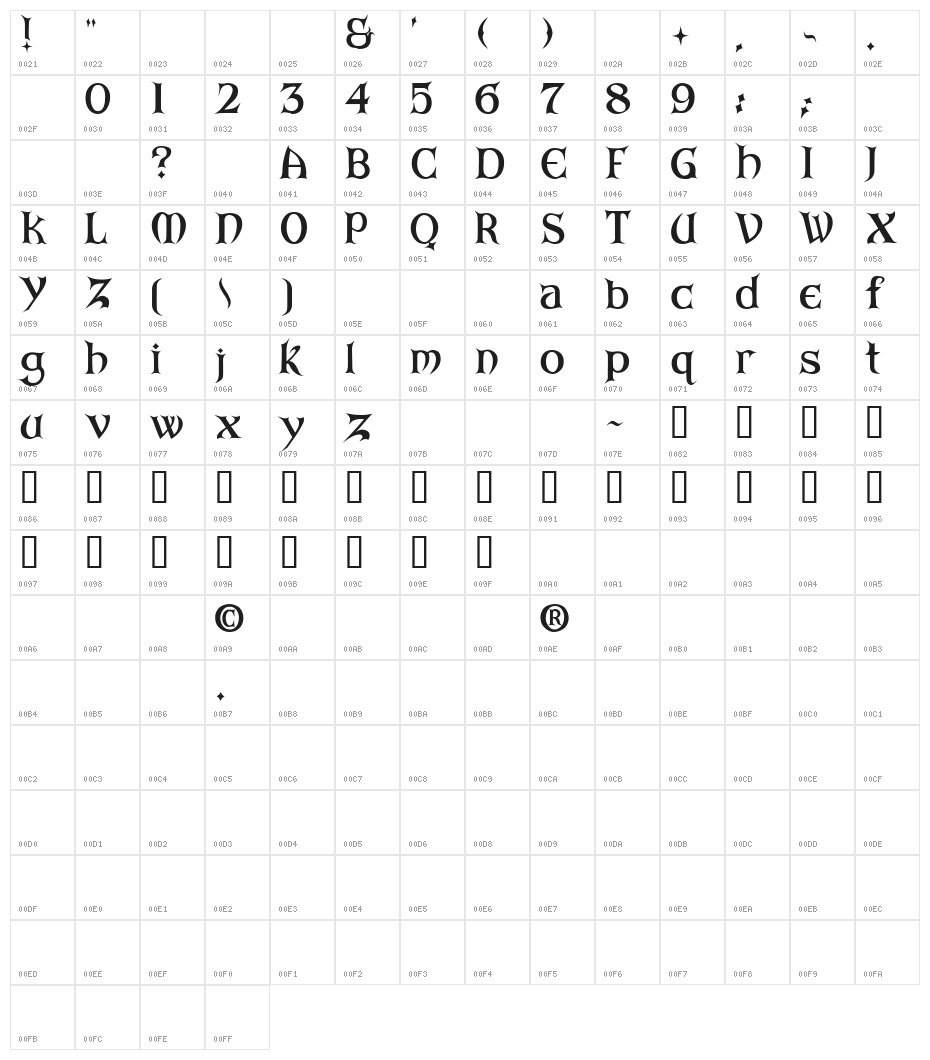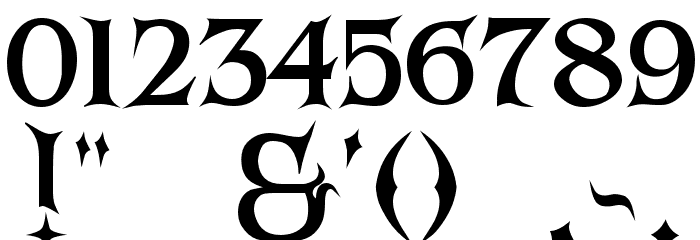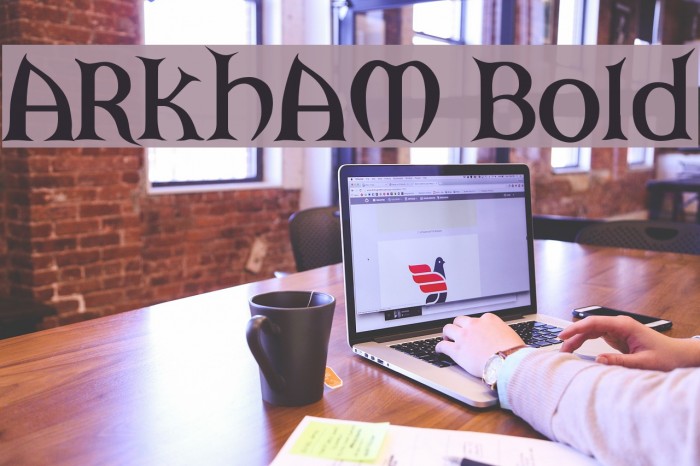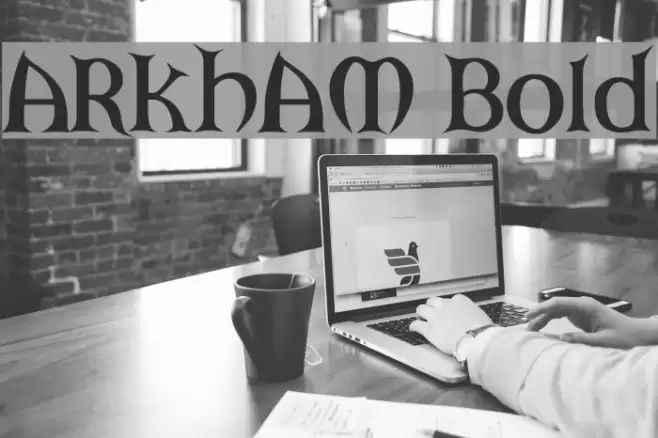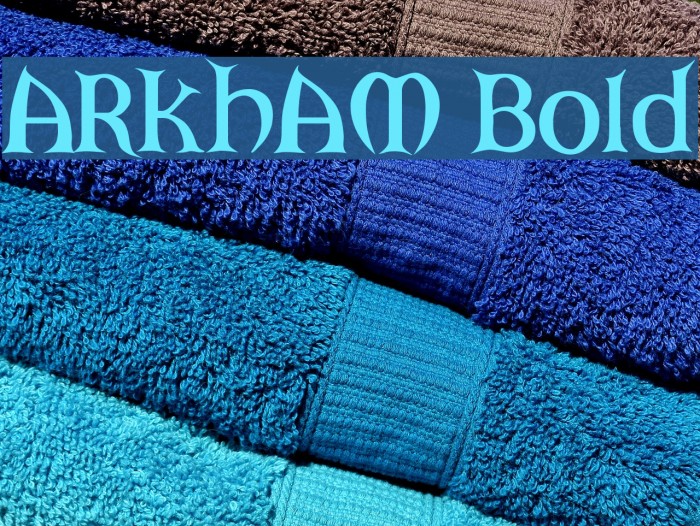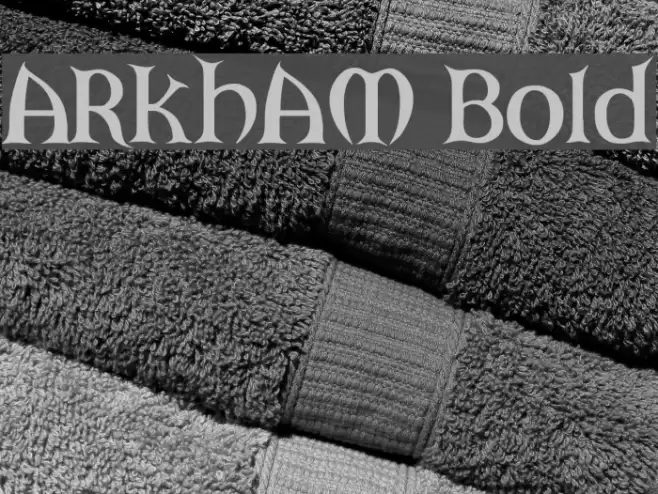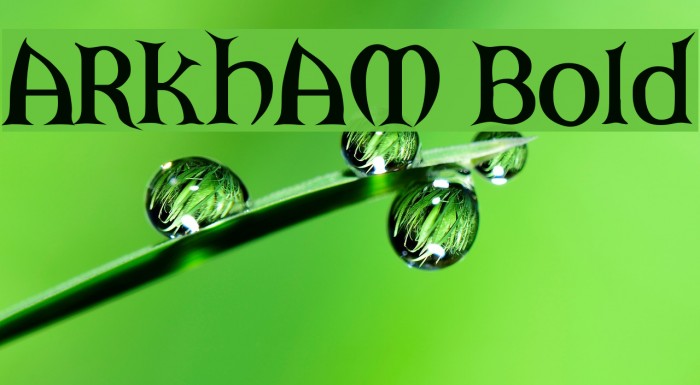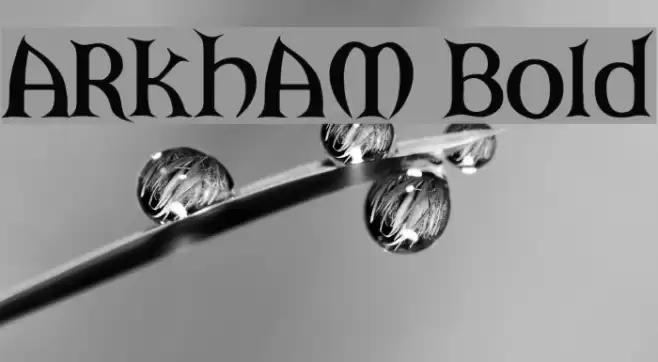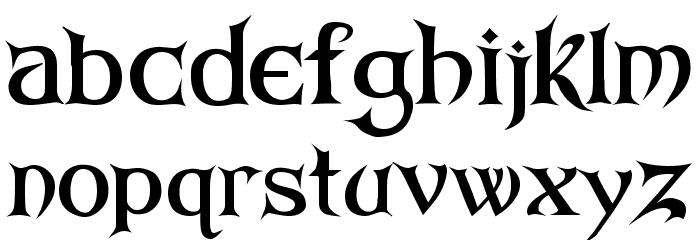
ARKHAM Bold Font
ARKHAM Bold Description
This font features a bold and dramatic style, characterized by sharp, angular serifs and a gothic influence. The uppercase letters are particularly striking, with exaggerated curves and pointed edges that give a sense of mystery and intrigue. The lowercase letters maintain this theme, offering a consistent aesthetic throughout. Numbers and special characters are equally bold, with a unique flair that complements the overall design. This font's distinct appearance makes it suitable for projects that require a touch of the dramatic or the fantastical.
| Overall Style | Gothic, Dramatic |
| Proposed Projects | Ideal for use in horror-themed designs, fantasy book covers, video game titles, and any project needing a dramatic, mysterious touch. |